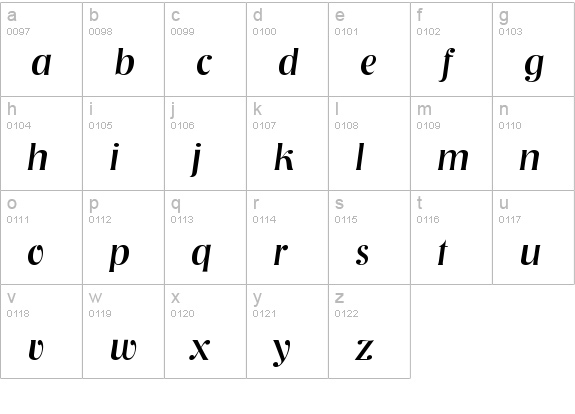
NashvilleEF-RegularItalic is a beautifully crafted font that exudes elegance and sophistication. The italic style adds a touch of flair and creativity to any design project. Whether you are creating invitations, posters, or branding materials, this font is sure to make a statement. The fluid curves and unique letterforms of NashvilleEF-RegularItalic make it a versatile choice for both print and digital applications. Its graceful appearance conveys a sense of elegance and refinement, perfect for adding a touch of class to your projects. Best of all, NashvilleEF-RegularItalic is available for free download at FontsMarket.com. You can easily access this stunning font and incorporate it into your designs without any hassle. Don't miss out on this opportunity to elevate your projects with the timeless charm of NashvilleEF-RegularItalic.